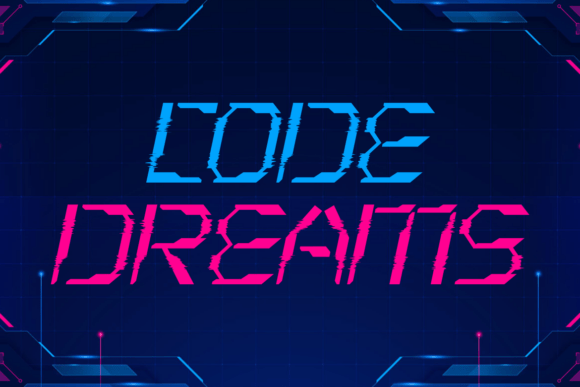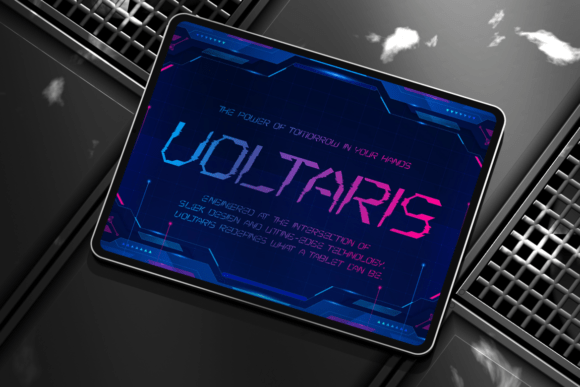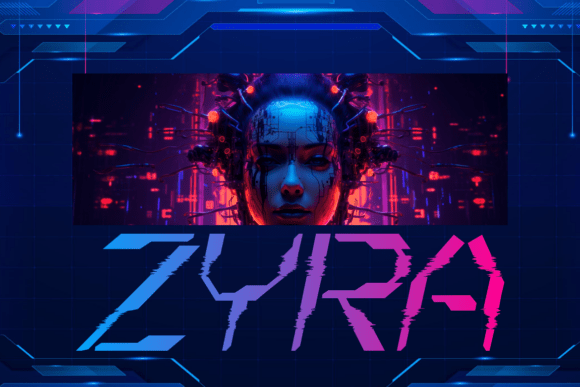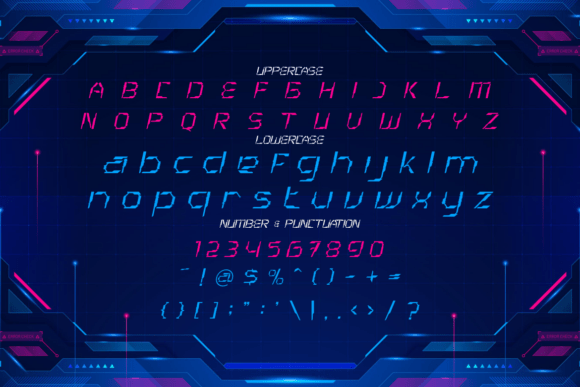
Introduction to Pulse Display Font
Pulse Display is a futuristic techno font infused with a digital glitch aesthetic and cyberpunk flair.
Each character is constructed with angular precision, featuring pixelated breaks and electrostatic distortion that mimic high-frequency tech signals This font blends crisp, mechanical letterforms with fragmented design elements, producing a highly stylized visual perfect for digital-age storytelling.